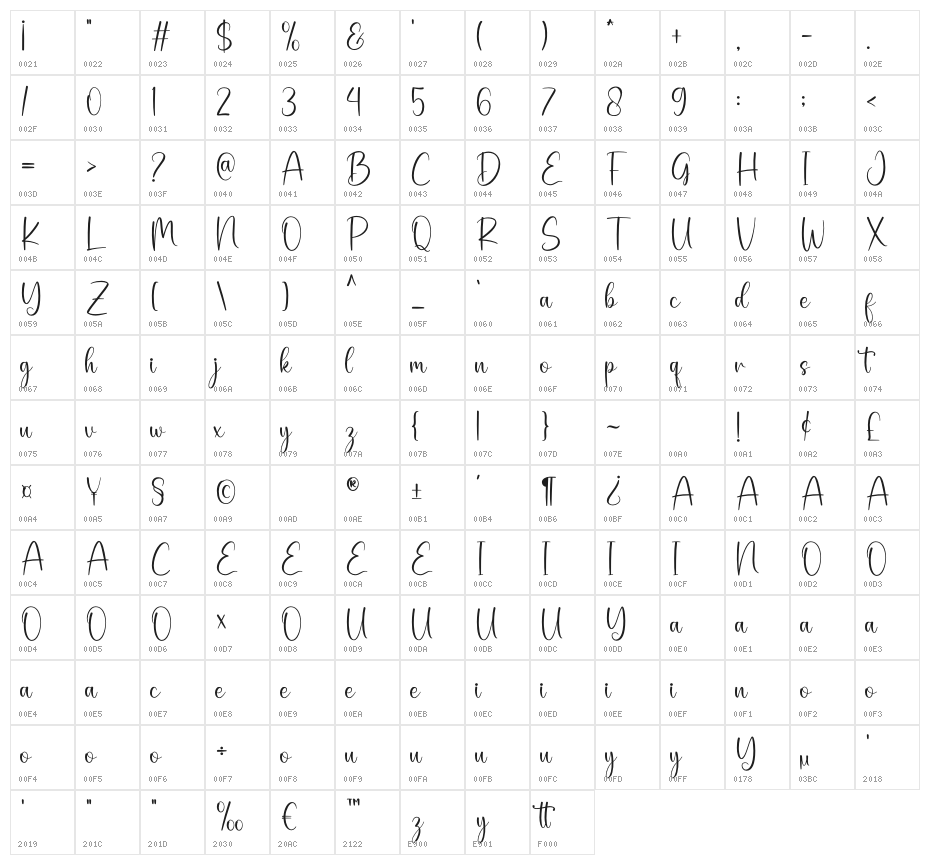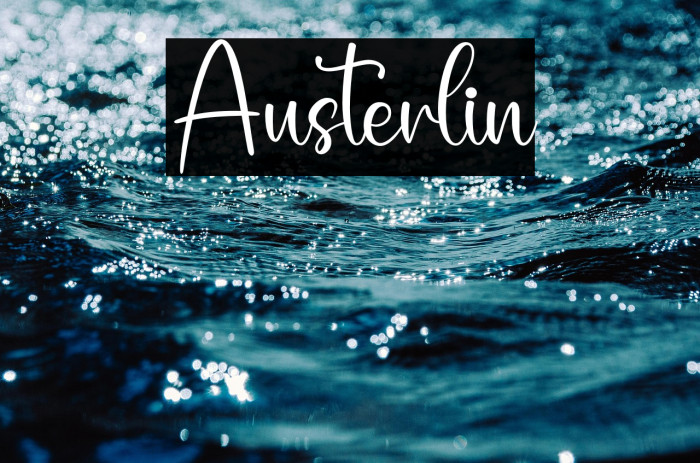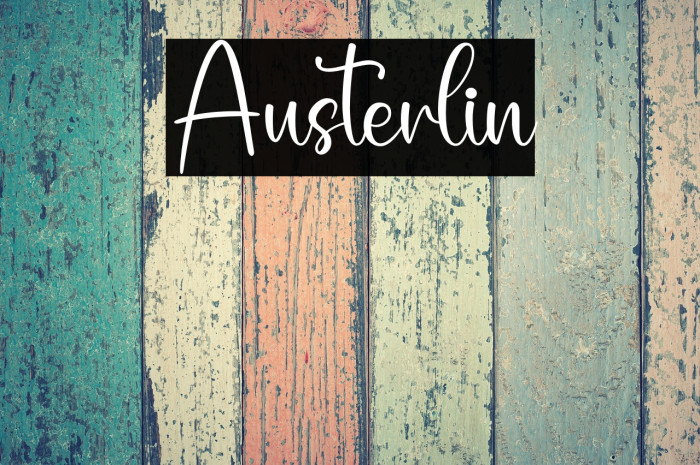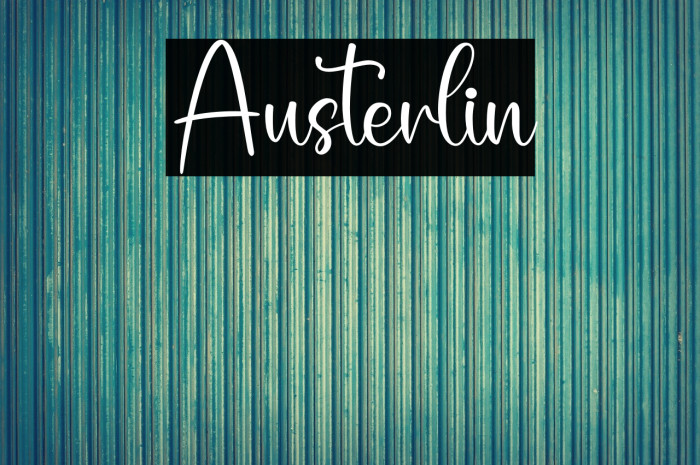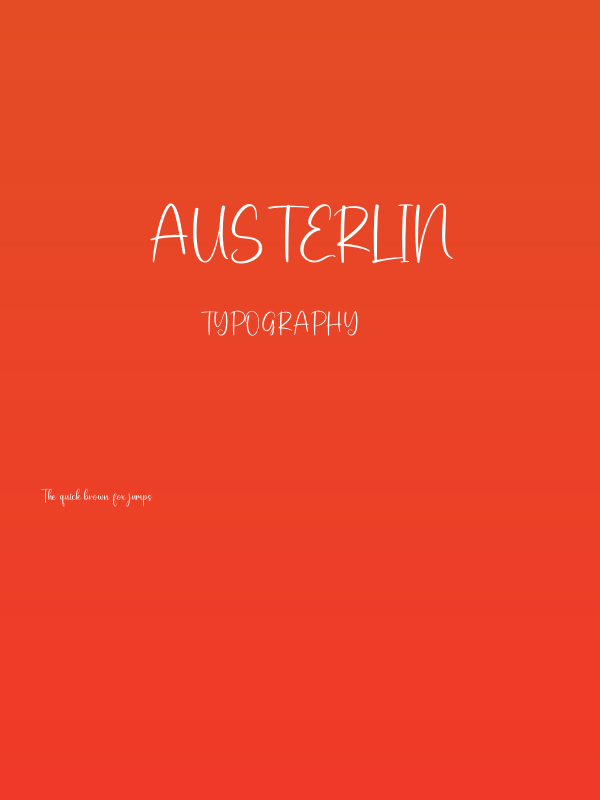
Austerlin Font
Austerlin Description
This font features a playful and elegant script style with a handwritten feel. The uppercase letters are tall and slender, with a slight slant that adds a dynamic flow to the text. The lowercase letters are more rounded and connected, enhancing the cursive appearance. The numbers maintain the same playful style, making them suitable for creative projects. Special characters are included, maintaining consistency with the overall design. The strokes are smooth and fluid, giving a sense of movement and grace. This font is versatile, suitable for both formal and informal contexts, and can add a personal touch to any design.
Proposed ProjectsIdeal for wedding invitations, greeting cards, logos, and branding materials that require a personal and elegant touch.